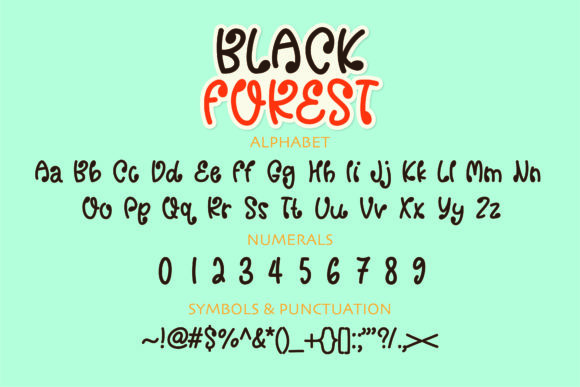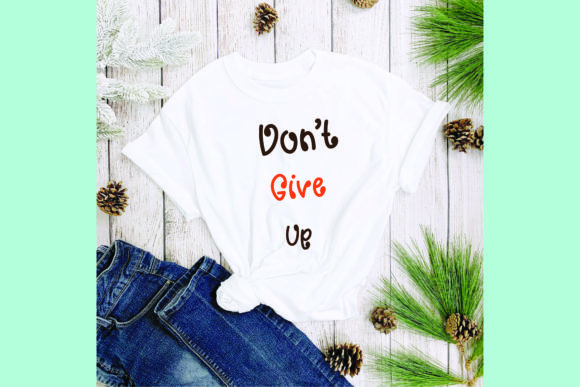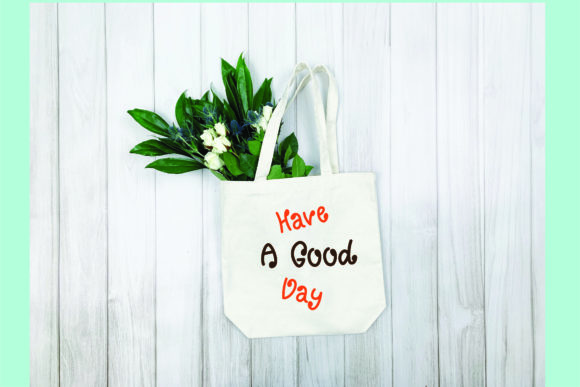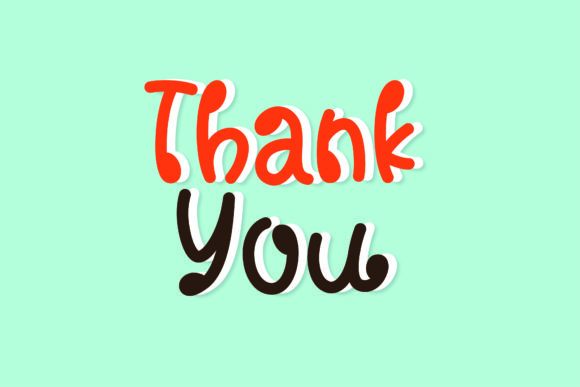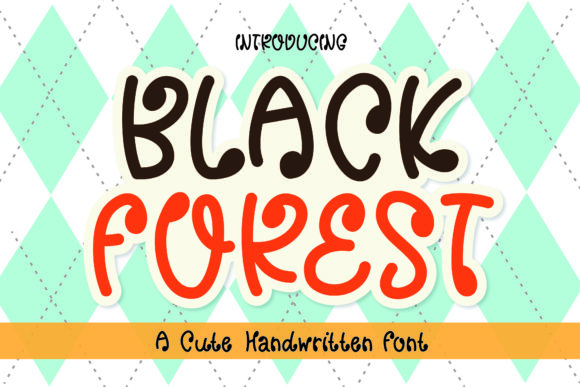
The Magical World of Black Forest Font
I’ll never forget the time I was working on a whimsical craft project, pouring my heart and soul into creating the perfect invitation. But, as I sat staring at my design, I knew something was missing – the right font. That’s when I stumbled upon Black Forest Font, and it was love at first sight! ✨ This cute, quirky, and friendly handwritten font has been a game-changer for my designs, and I’m excited to share its magic with you.
An Honest Review of Black Forest Font
- ✨ Unique and eye-catching: Black Forest Font stands out from the crowd with its playful and charming personality.
- ✅ Highly versatile: This font can be used for a wide range of projects, from crafting and DIY to branding and advertising.
- 💕 Emotionally resonant: The font’s friendly and approachable vibe makes it perfect for designs that aim to evoke a sense of warmth and connection.
While Black Forest Font is an amazing addition to any design, there are a few things to keep in mind: 🤔
- ⚠️ Limited use in formal contexts: Due to its playful nature, Black Forest Font might not be the best fit for formal or professional projects that require a more serious tone.
- ⚠️ May not work well in small sizes: As with many handwritten fonts, Black Forest Font can become a bit tricky to read when scaled down to very small sizes.
The Story Behind Black Forest Font
Black Forest Font was created by a talented type designer who drew inspiration from the mystical and enchanting Black Forest in Germany. The font’s playful and whimsical personality is a reflection of the forest’s magical atmosphere, where myth and reality blend together. 🌳
Q: Is Black Forest Font suitable for body text?
A: While Black Forest Font is beautiful, it’s best used as a display font or for short paragraphs. Its playful nature might make it difficult to read in large blocks of text.